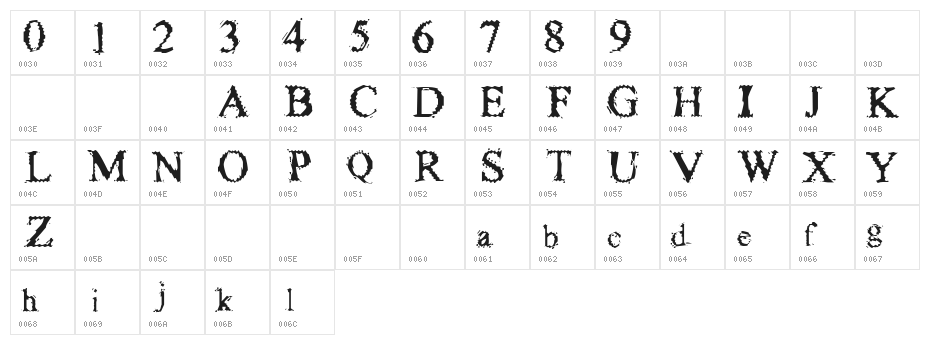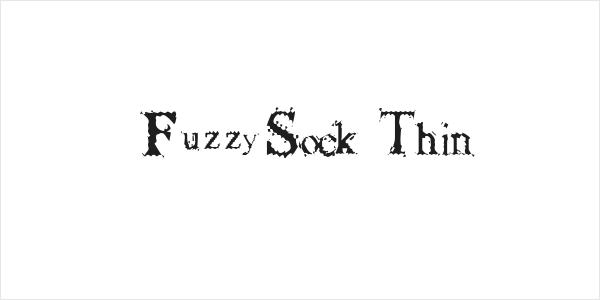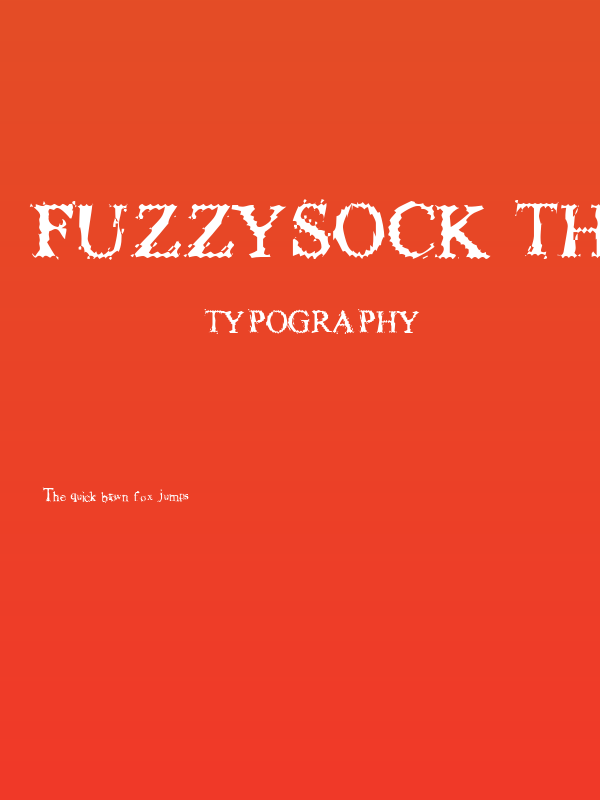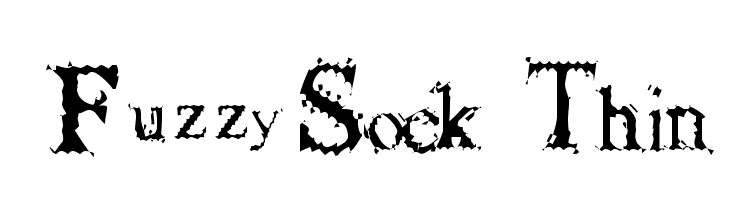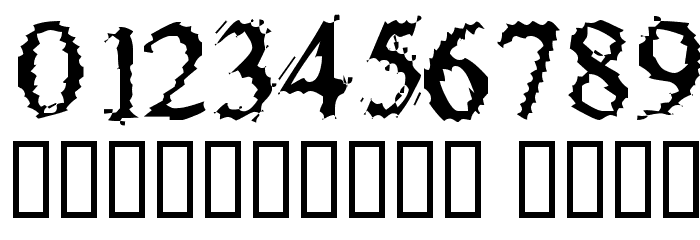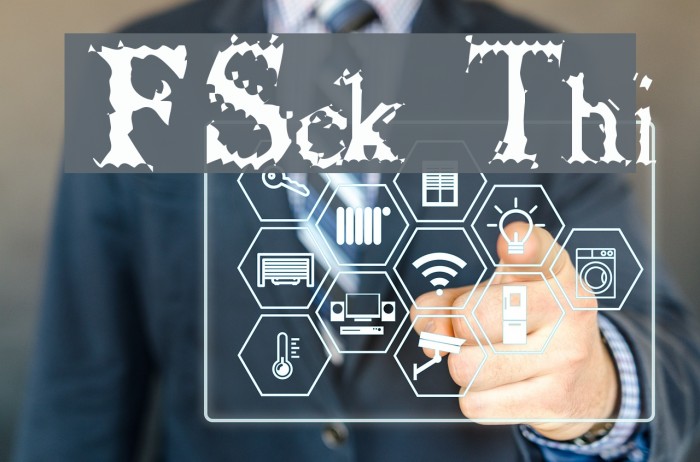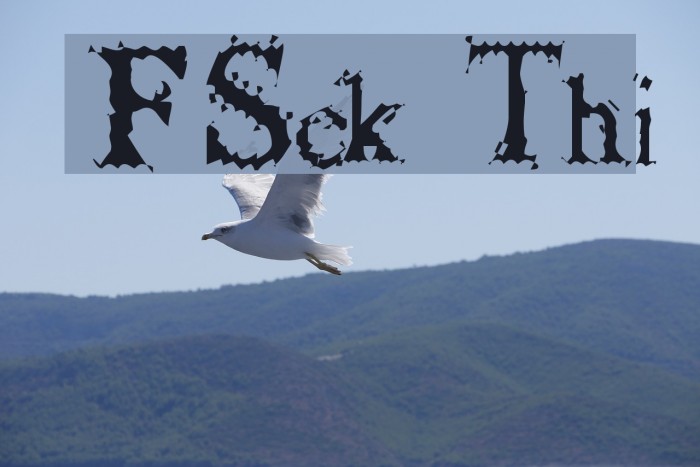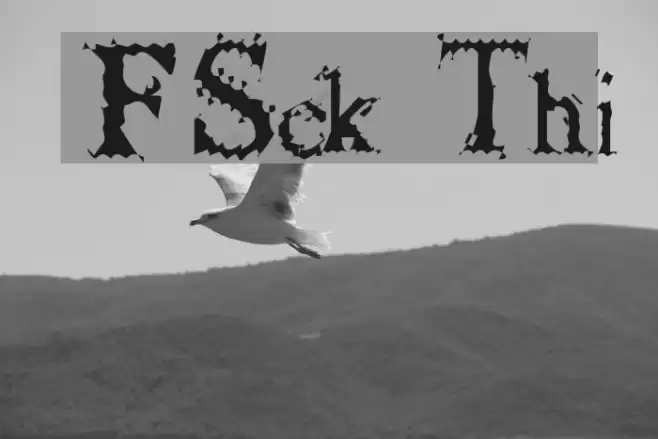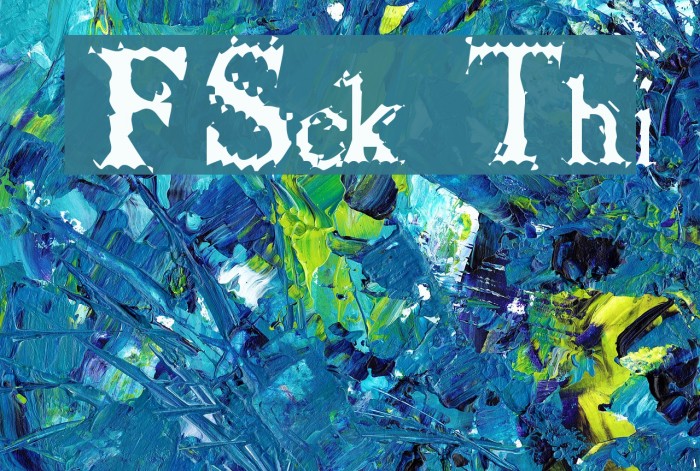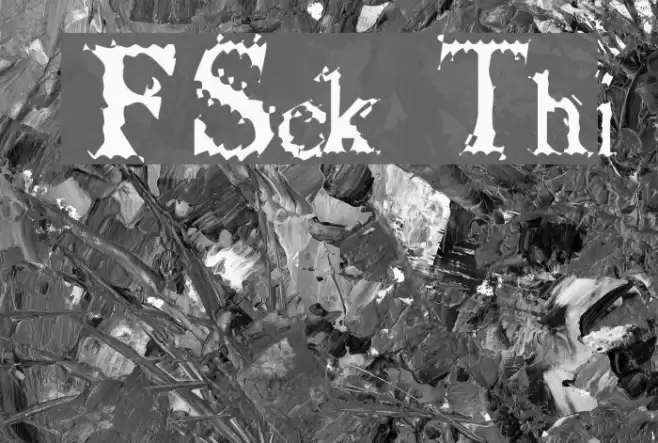
FuzzySock Thin Font
FuzzySock Thin Description
This font exhibits a unique, jagged appearance that gives it a fuzzy, distressed look. The characters are irregular and have a rough, torn edge, creating a sense of movement and texture. The uppercase and lowercase letters maintain a consistent style, with sharp, angular edges that appear to be frayed or shredded. Numbers and special characters follow the same design, enhancing the overall cohesive aesthetic. This font's distinctive style makes it stand out, offering a bold and unconventional choice for creative projects.
| Proposed Projects | Ideal for edgy posters, album covers, or any design needing a bold, unconventional look. |